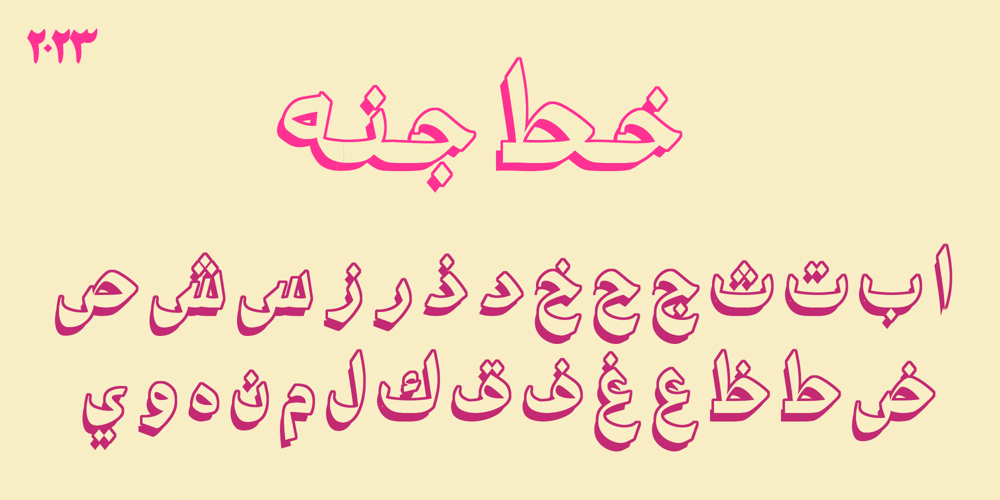
Khat Jannah Font Family was designed by Jannah Ibrahim and published by Motagadeda Type. Khat Jannah contains 1 styles and family package options. Introducing Khat Jannah, a captivating and unique font that breaks away from traditional design conventions. This exceptional typeface pushes the boundaries of Arabic typography, offering a distinct and visually striking display font unlike any other.